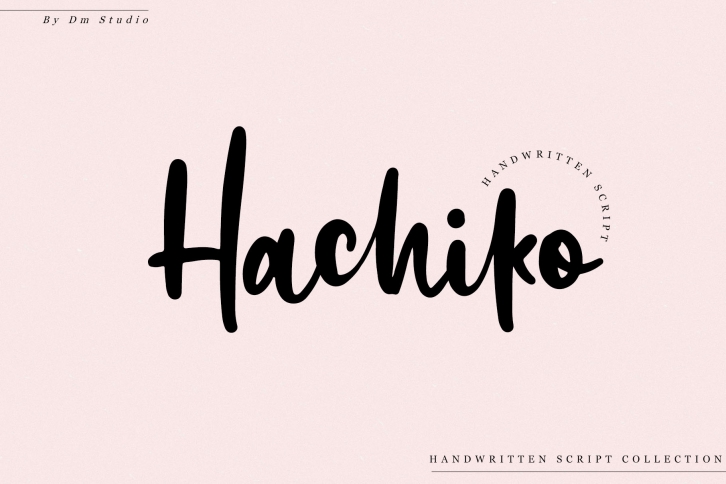
Hachiko - Handwritten Font Download
Hachiko is a trendy and unique font with an authentic style. It was designed by DMletterstudio and it's a great choice for creative people who need such a font. It was released on January 20, 2020 and the file size is 3.85 MB. Hachiko will add an organic vibe to any design idea!